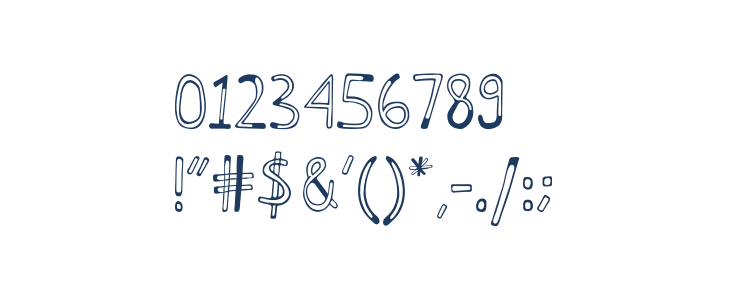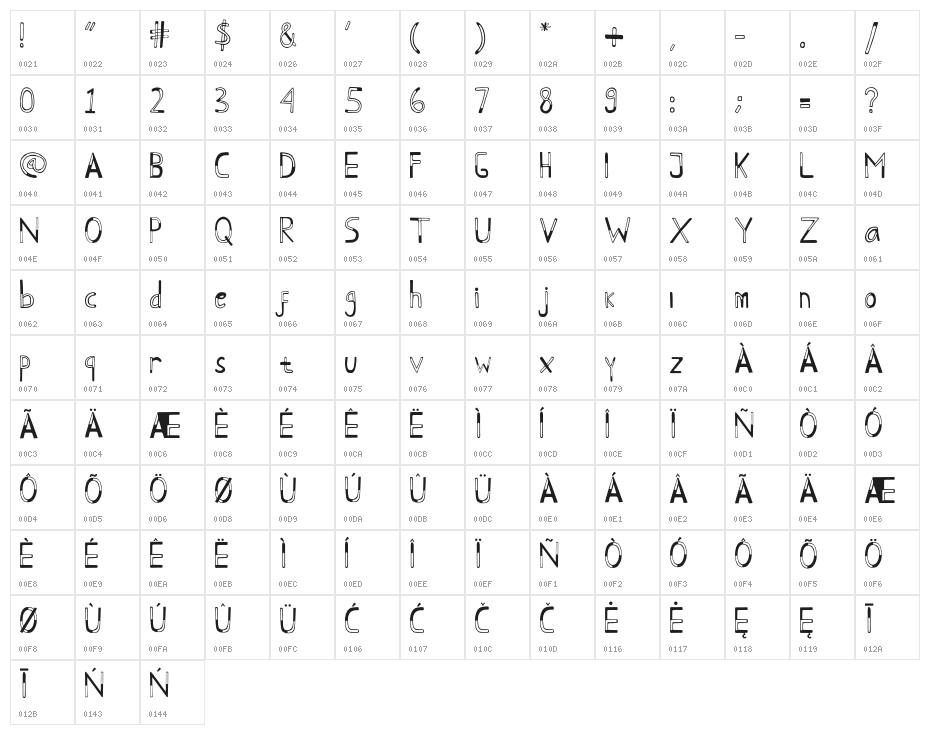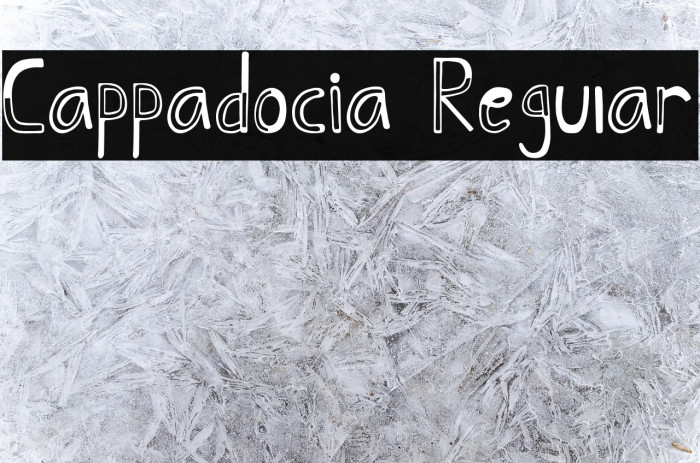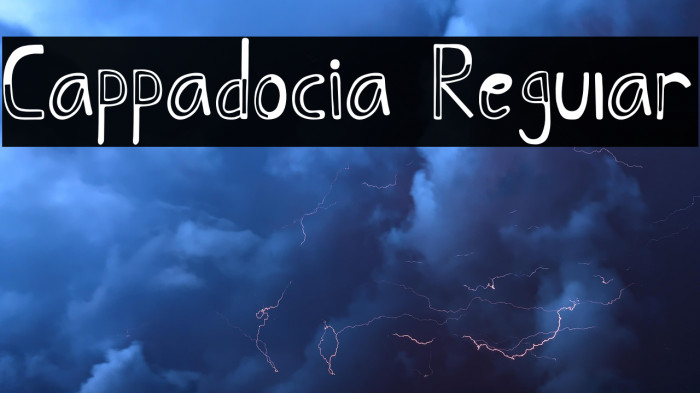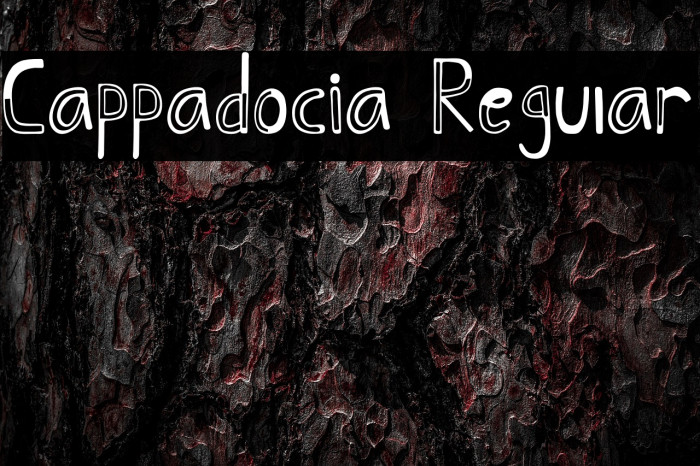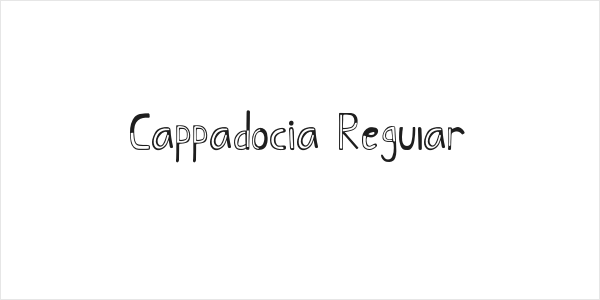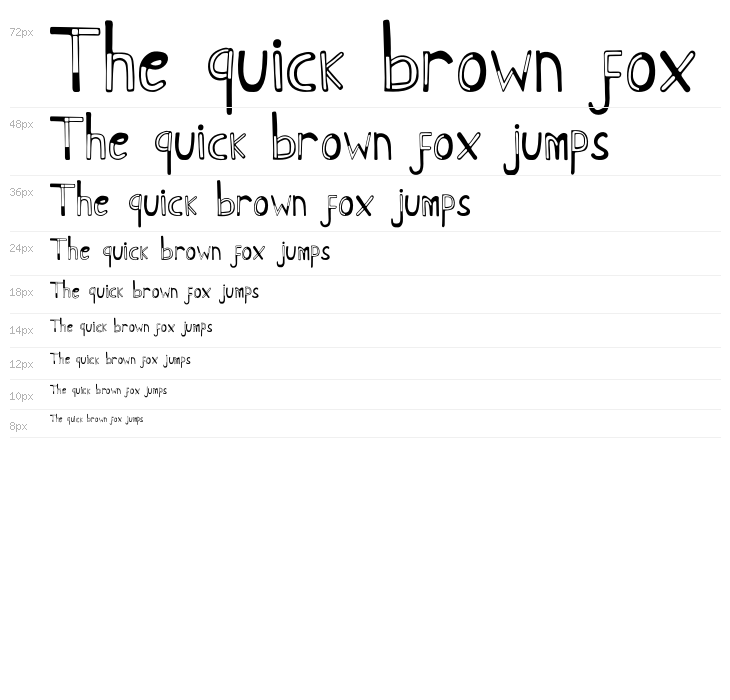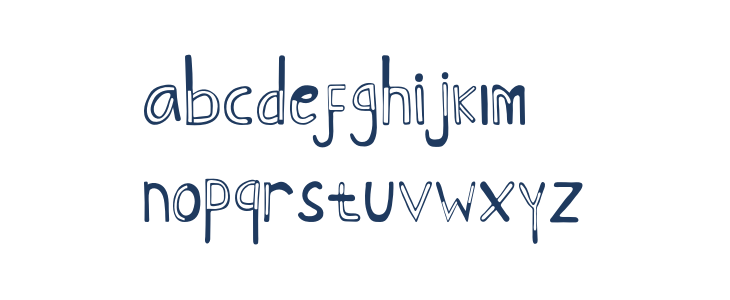
Cappadocia Regular Font
Cappadocia Regular Description
This font features a playful and quirky design with a hand-drawn aesthetic. The uppercase and lowercase letters exhibit a mix of thick and thin strokes, giving it a dynamic and lively appearance. The characters are slightly irregular, adding to its whimsical charm. The numbers and special characters maintain this playful style, making the font suitable for creative and informal projects. Its unique style stands out, making it ideal for eye-catching designs.
| Overall Style | Whimsical, Artistic |
| Proposed Projects | Ideal for children's books, playful branding, creative posters, and artistic invitations. |